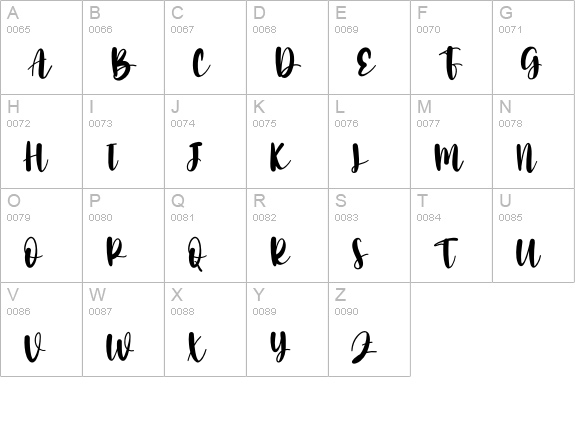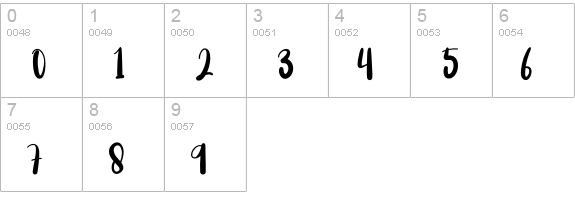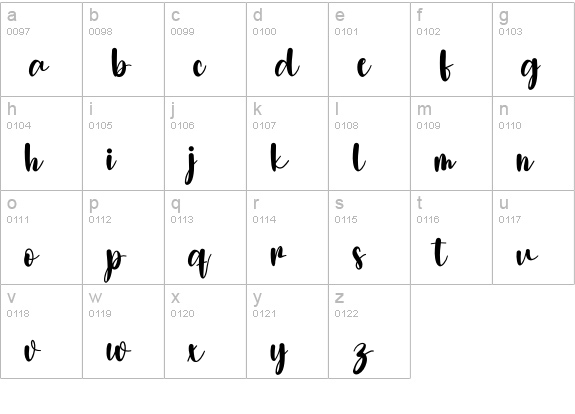
Beautiful Font is a stunning typeface that exudes elegance and style. With its graceful curves and sophisticated details, this font is perfect for adding a touch of beauty to any design project. Whether you are creating wedding invitations, logos, or social media graphics, Beautiful Font will elevate your work to new heights.